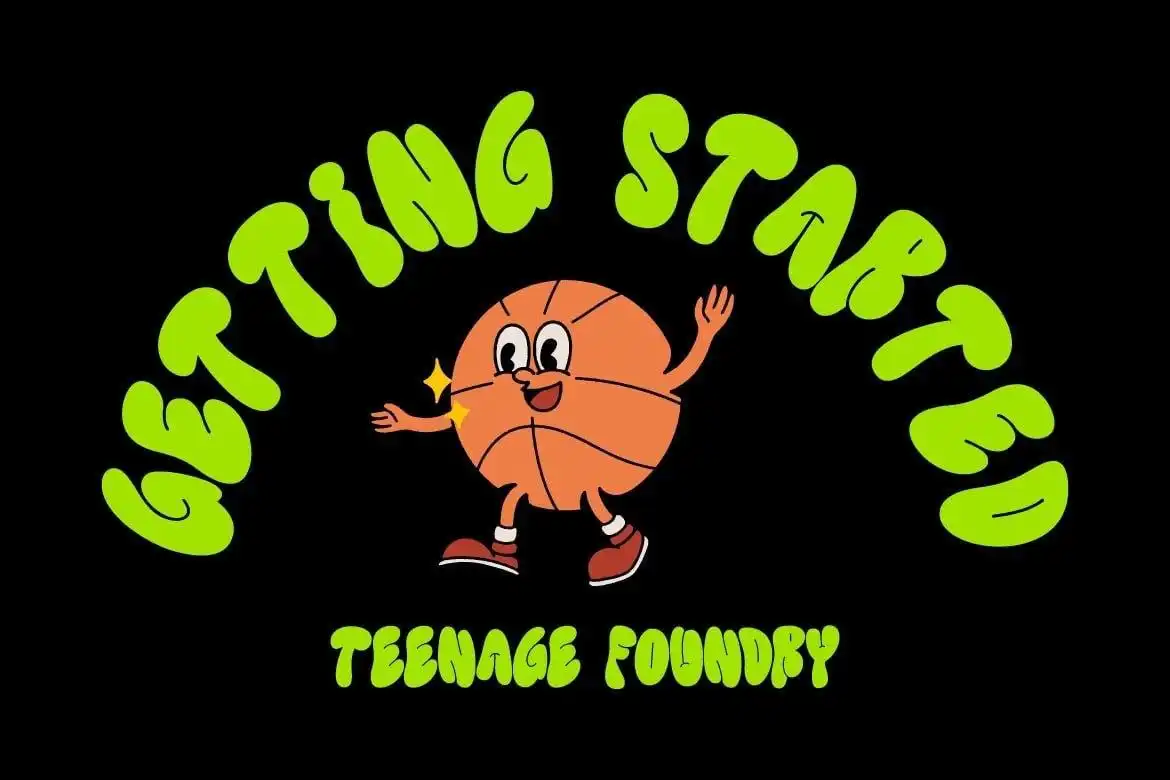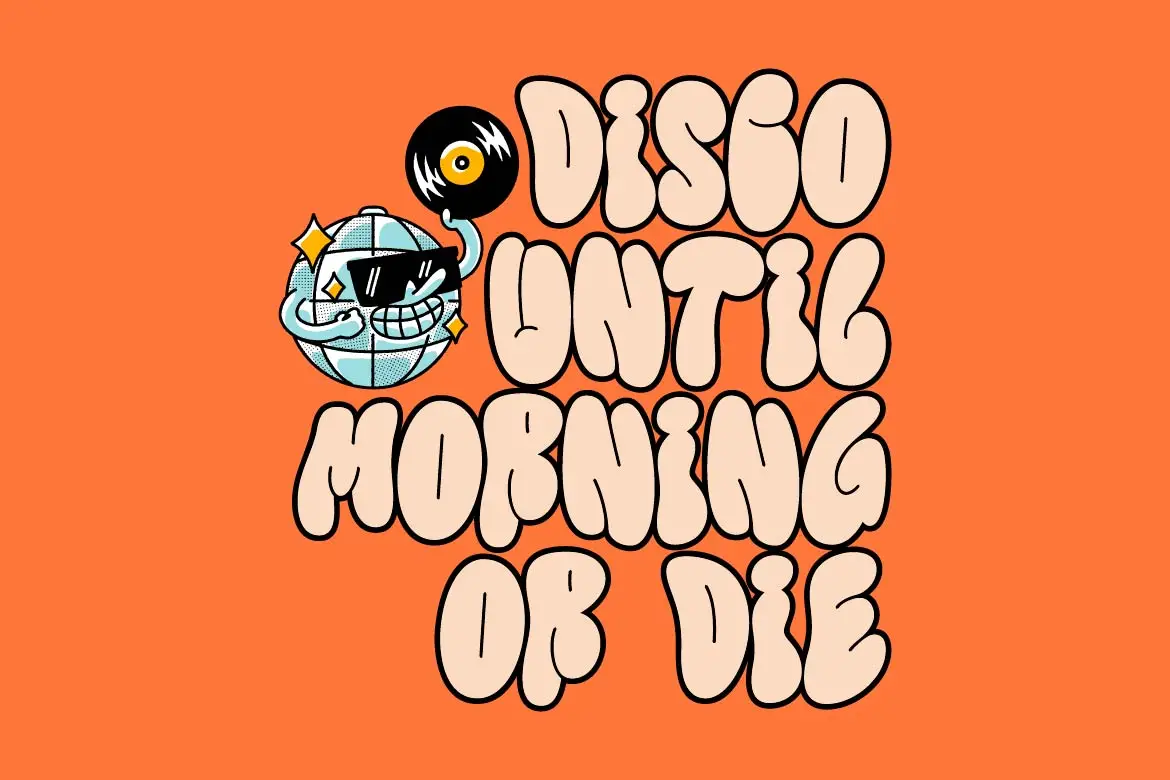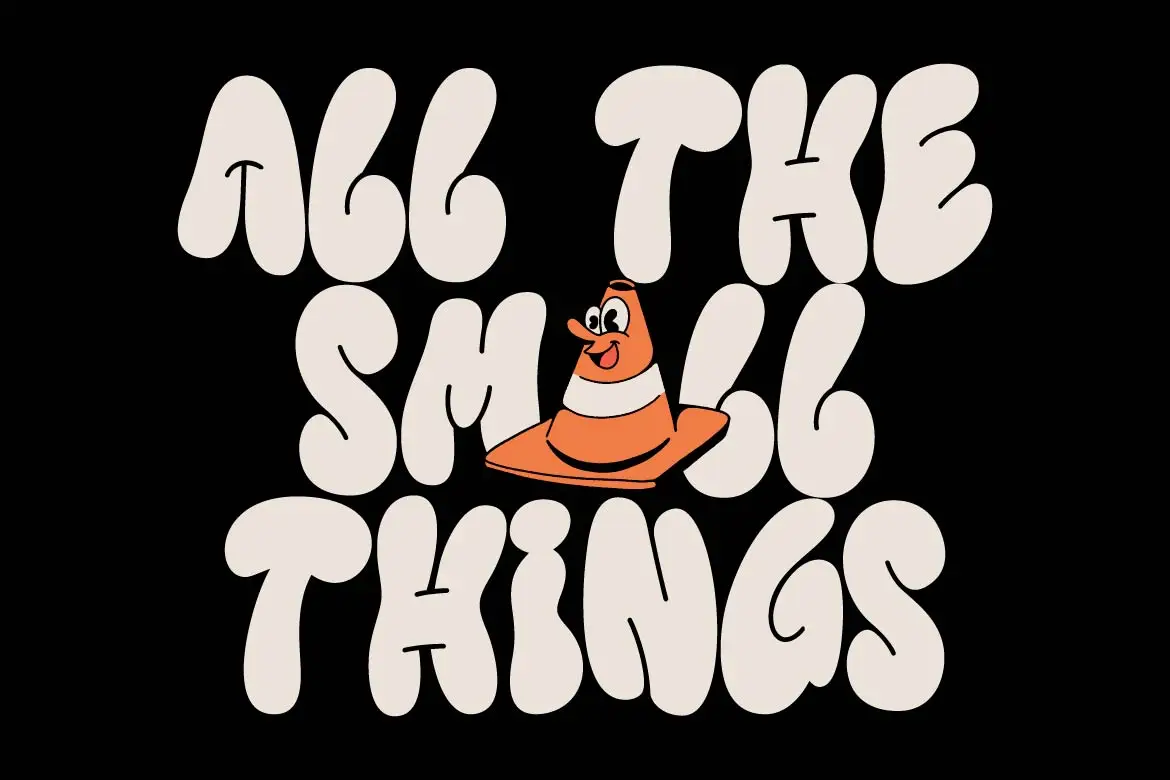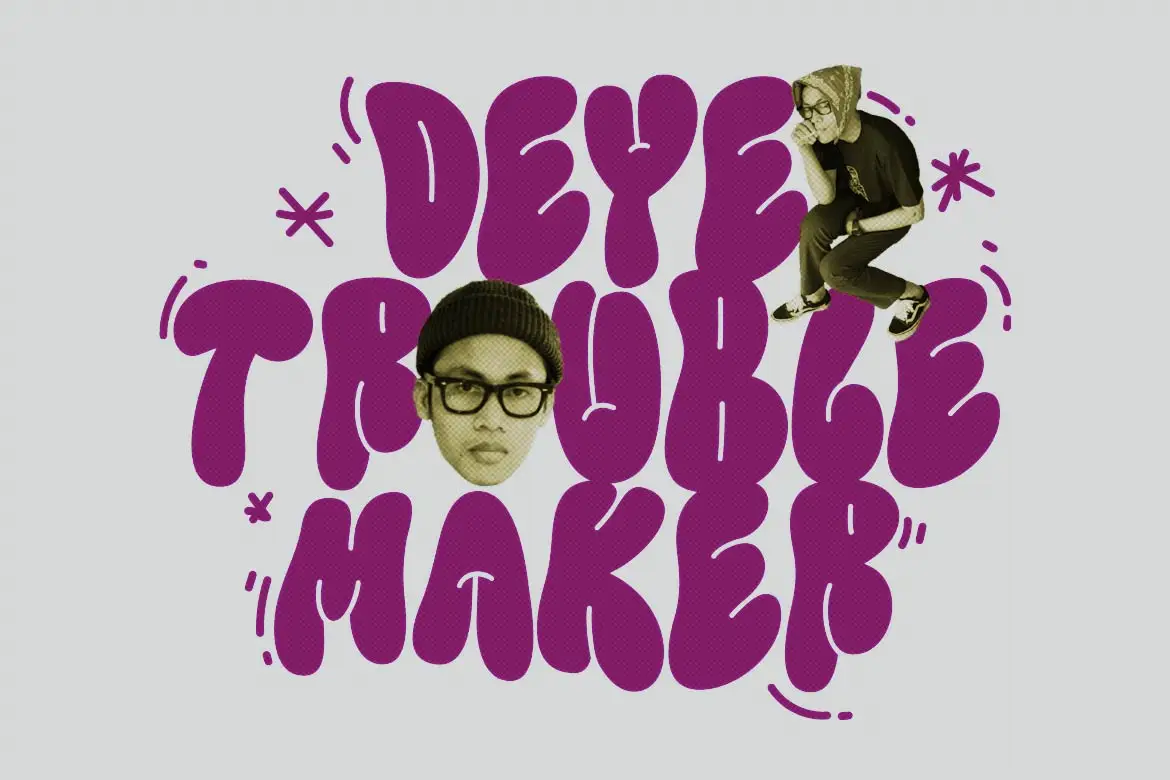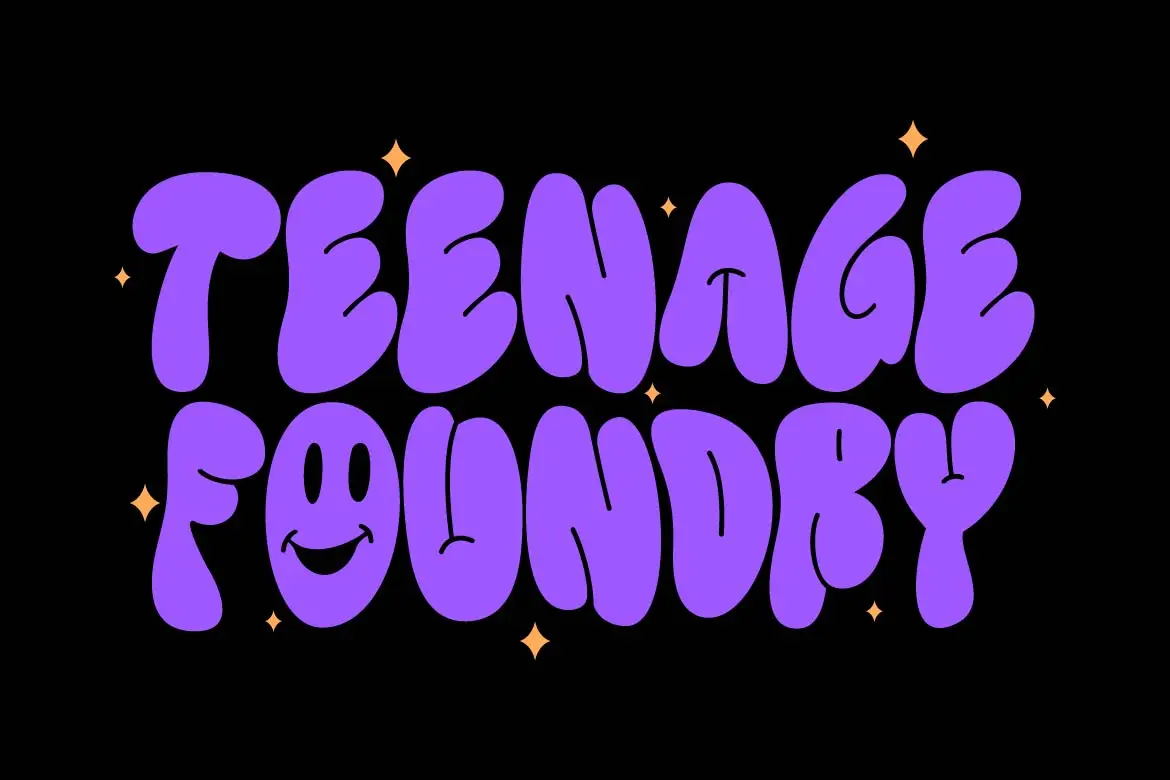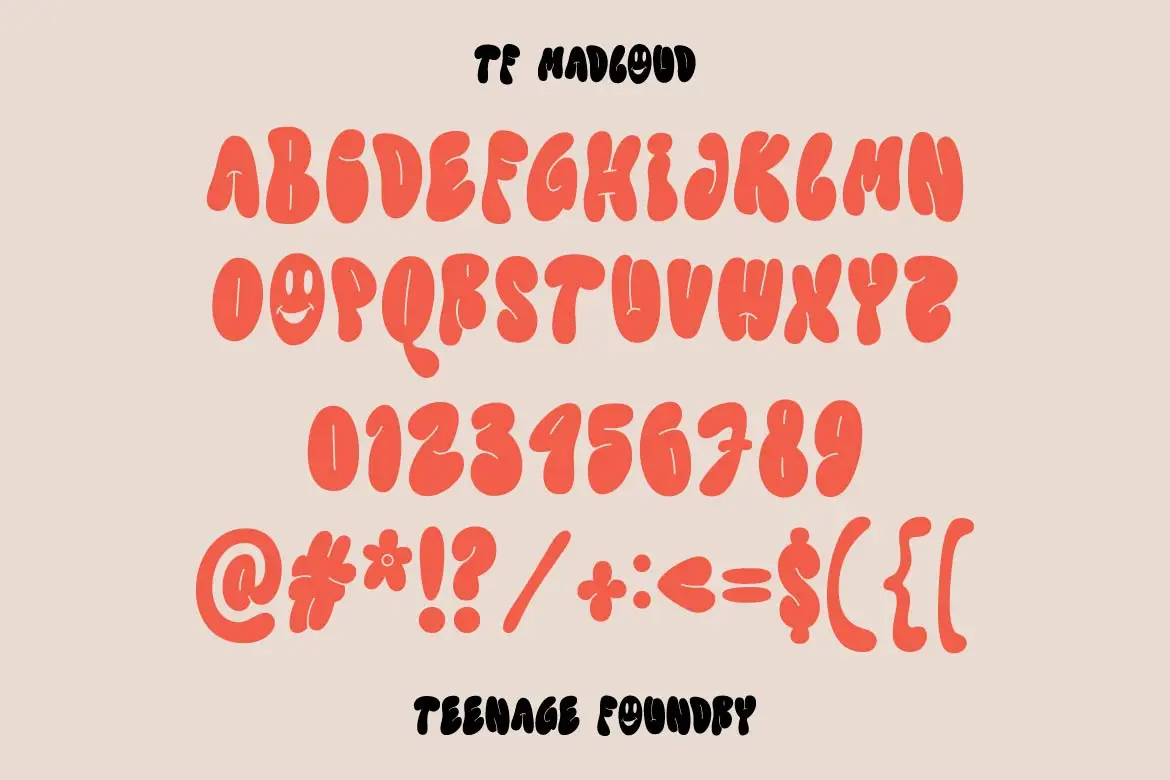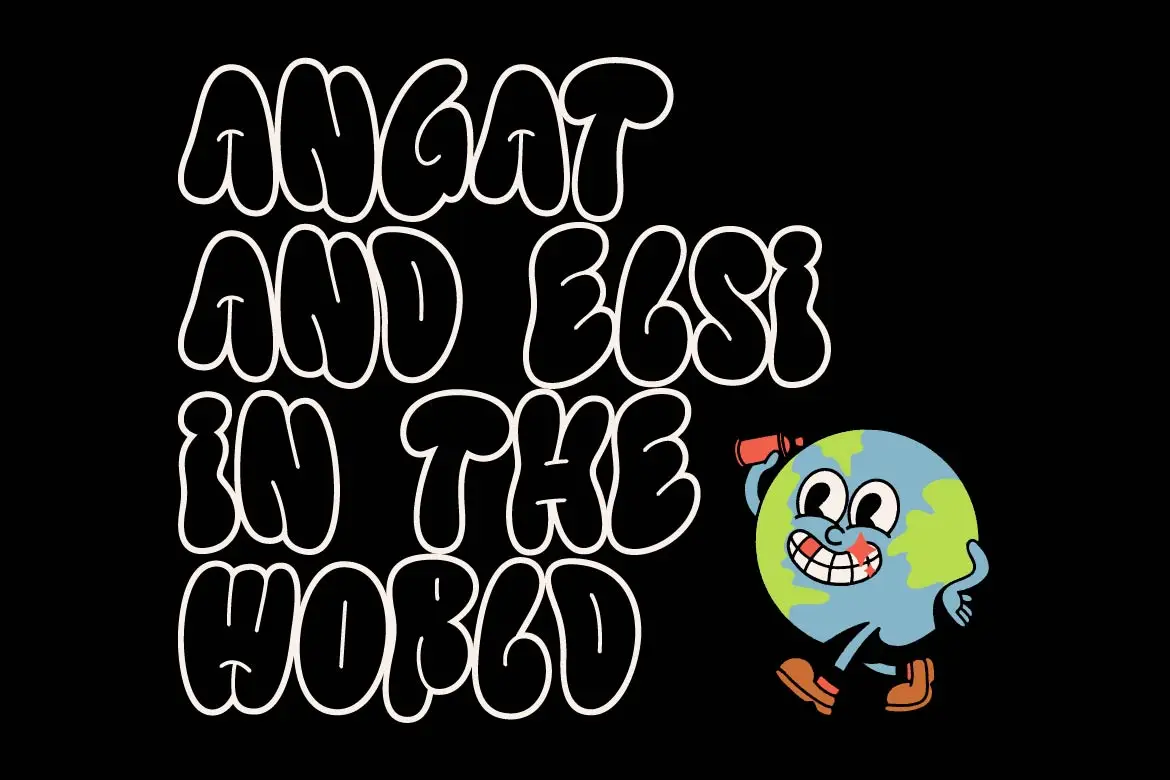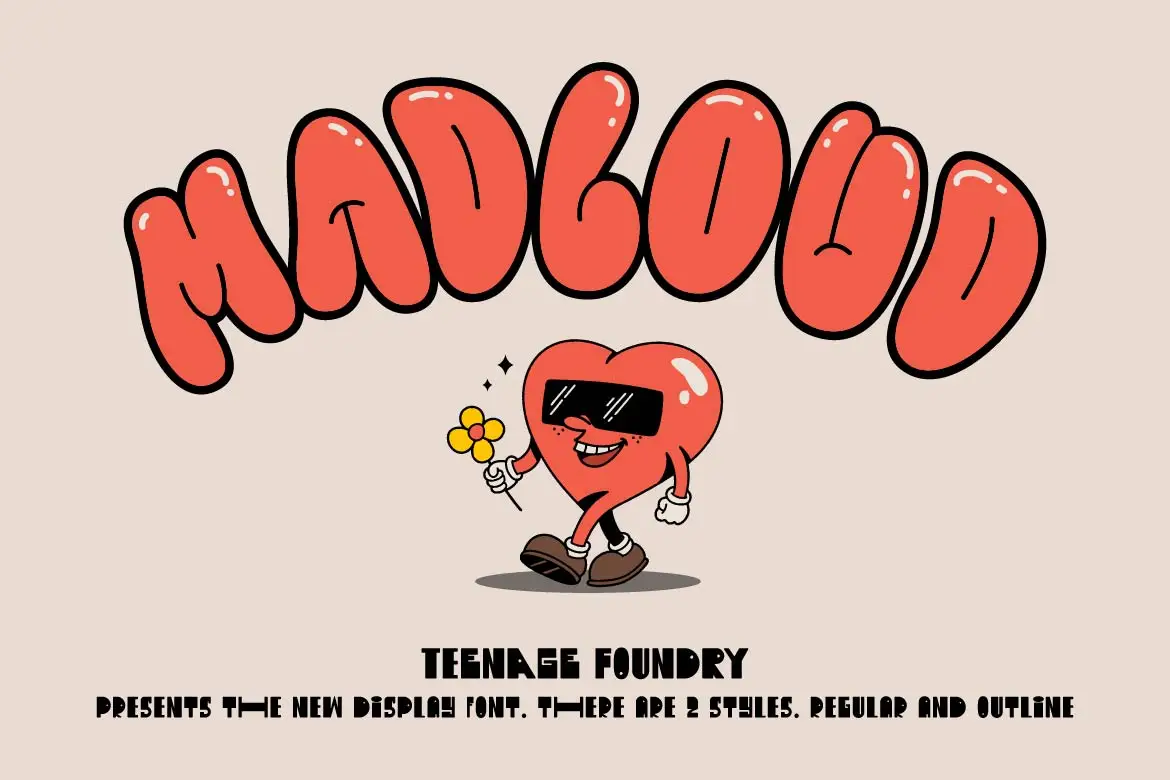
Welcome to the World of Madcloud Display Font!
This digital download features the Madcloud Display Font, a bold and playful typeface that brings a fun, carefree vibe to your projects! 🌈 With instant access, you can start creating right away!
The Madcloud Display Font is not just any font; it’s a unique, hand-drawn typeface that stands out in any design. Perfectly suited for everything from posters to branding, this font is your new creative companion! ✨ Whether you’re looking for a clouds display font or something with a bit of attitude, the Madcloud font family has got you covered!
- Bold & Playful Design: Instantly grabs attention and adds character to your work.
- Multiple Versions: Includes both regular and outline styles for versatile usage.
- Rich Character Set: Uppercase, lowercase, numerals, punctuation, and multilingual support to cater to a global audience!
- Bonus Illustrations: Comes with 5 creative illustrations to inspire your projects. 🎨
This font is ideal for graphic designers, typographers, and anyone looking to add a playful touch to their projects! Whether you’re working on posters, social media graphics, or branding materials, the Madcloud Display Font fits right in! 🌟